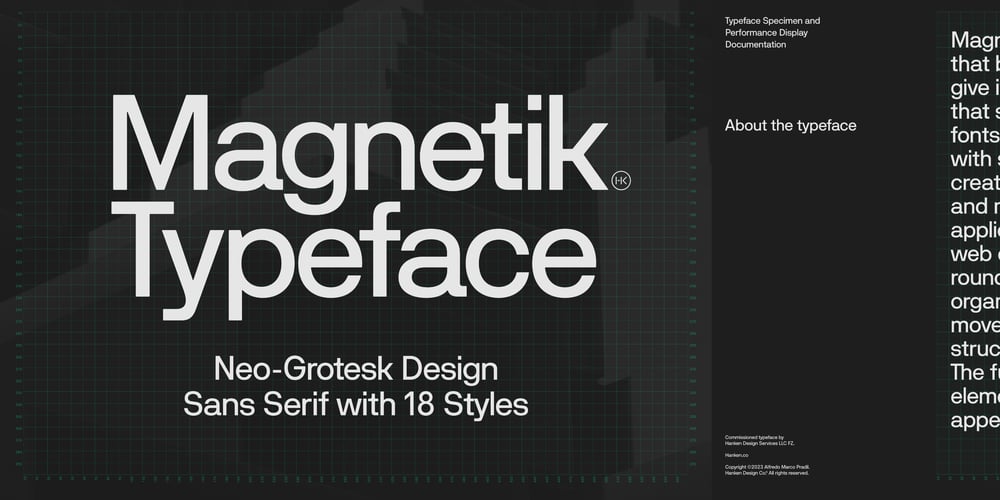
Magnetik Font Family was designed by Alfredo Marco Pradil and published by Hanken Design Co.. Magnetik contains 18 styles and family package options. Magnetik is a versatile geometric typeface that boasts slightly rounded corners, which give it a modern and unique appearance that sets it apart from traditional geometric fonts. The font’s design is bold and striking, with sharp angles and precise lines that create a sleek and futuristic look. Its clean and minimalist style is ideal for a variety of applications, from logos and branding to web design and print materials. The slightly rounded corners of Magnetik lend it an organic, dynamic feel, suggesting movement and energy, while the geometric structure conveys stability and strength. The fusion of these seemingly contrasting elements results in a design that is visually appealing and attention-grabbing.